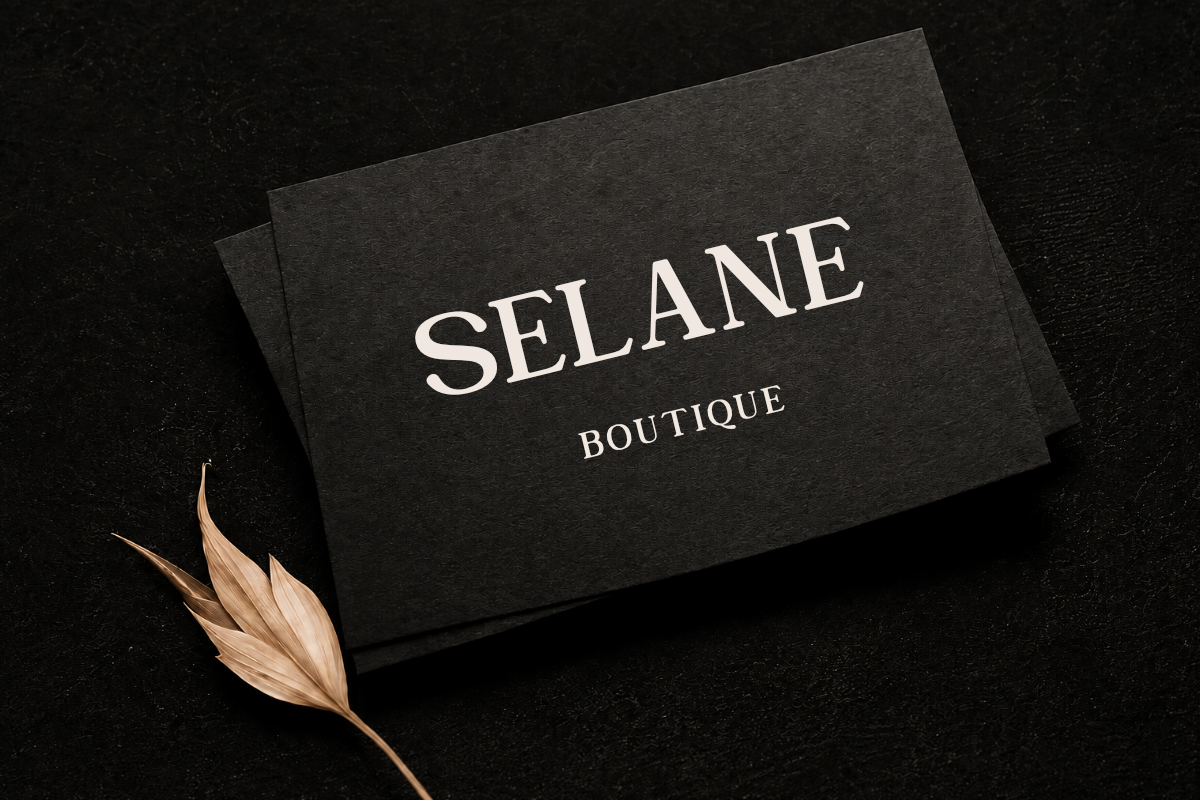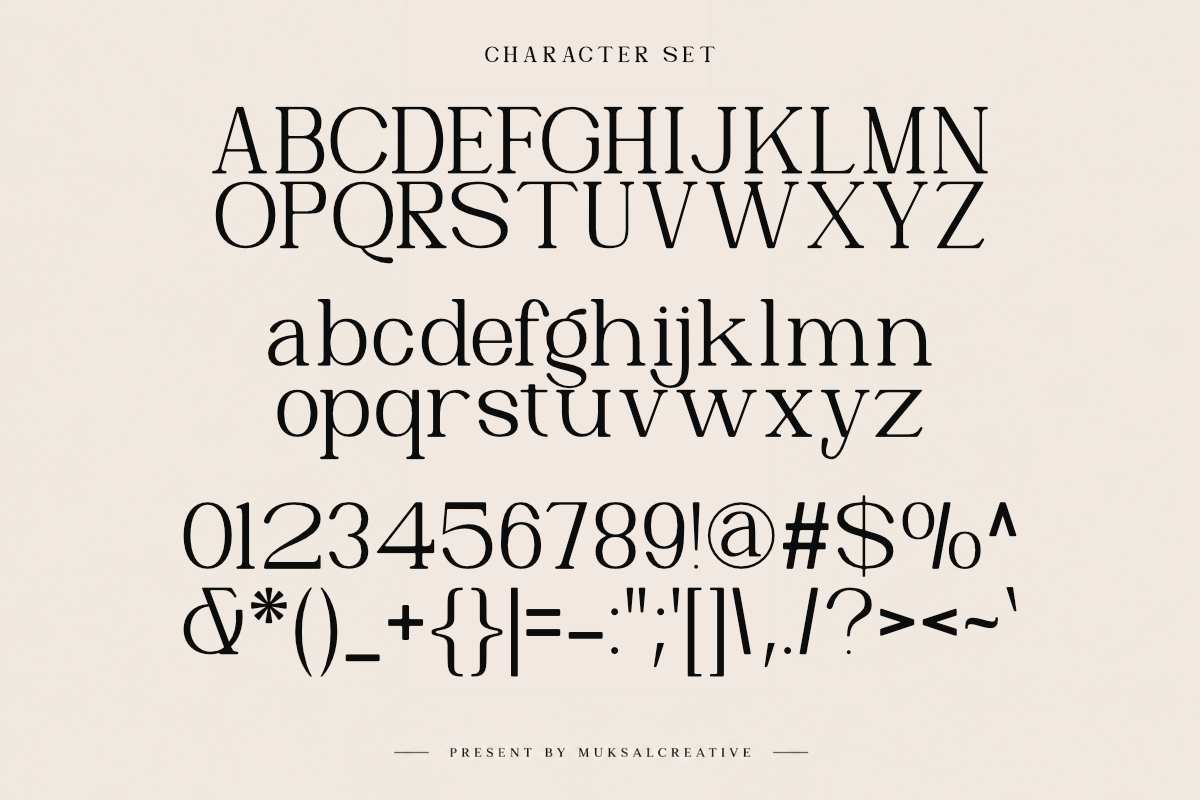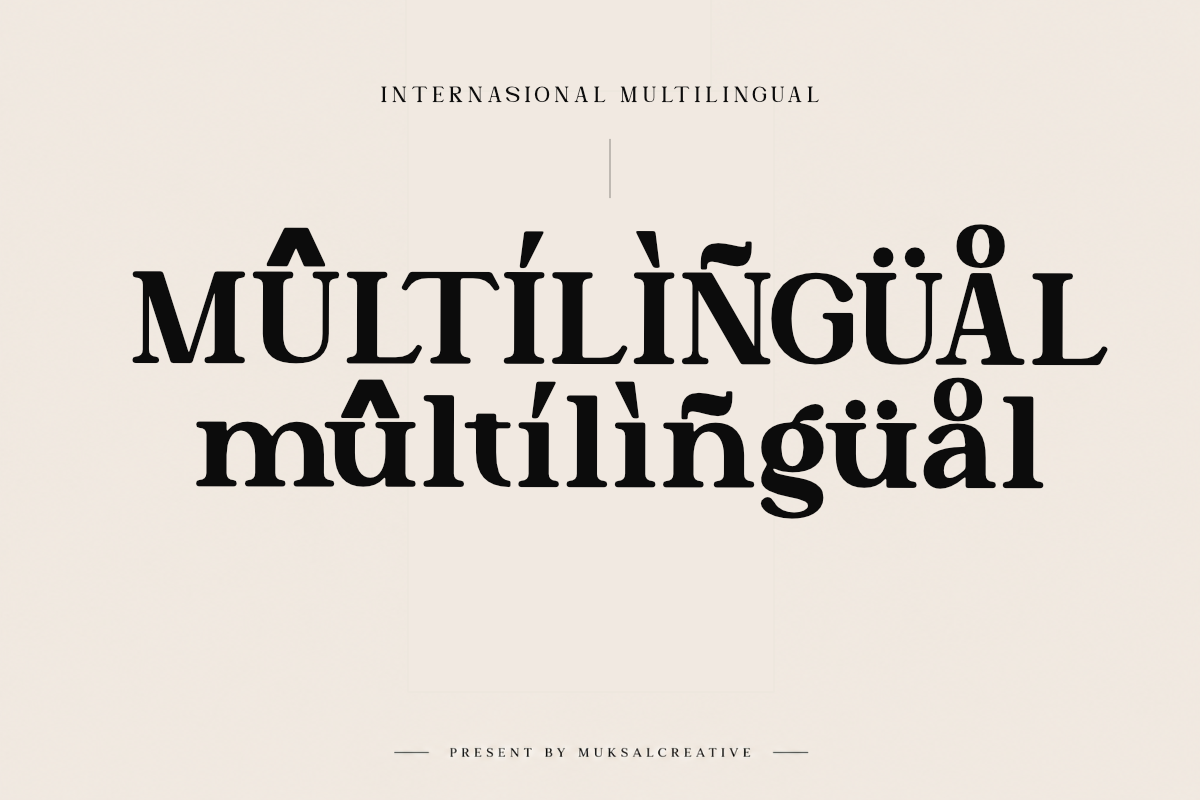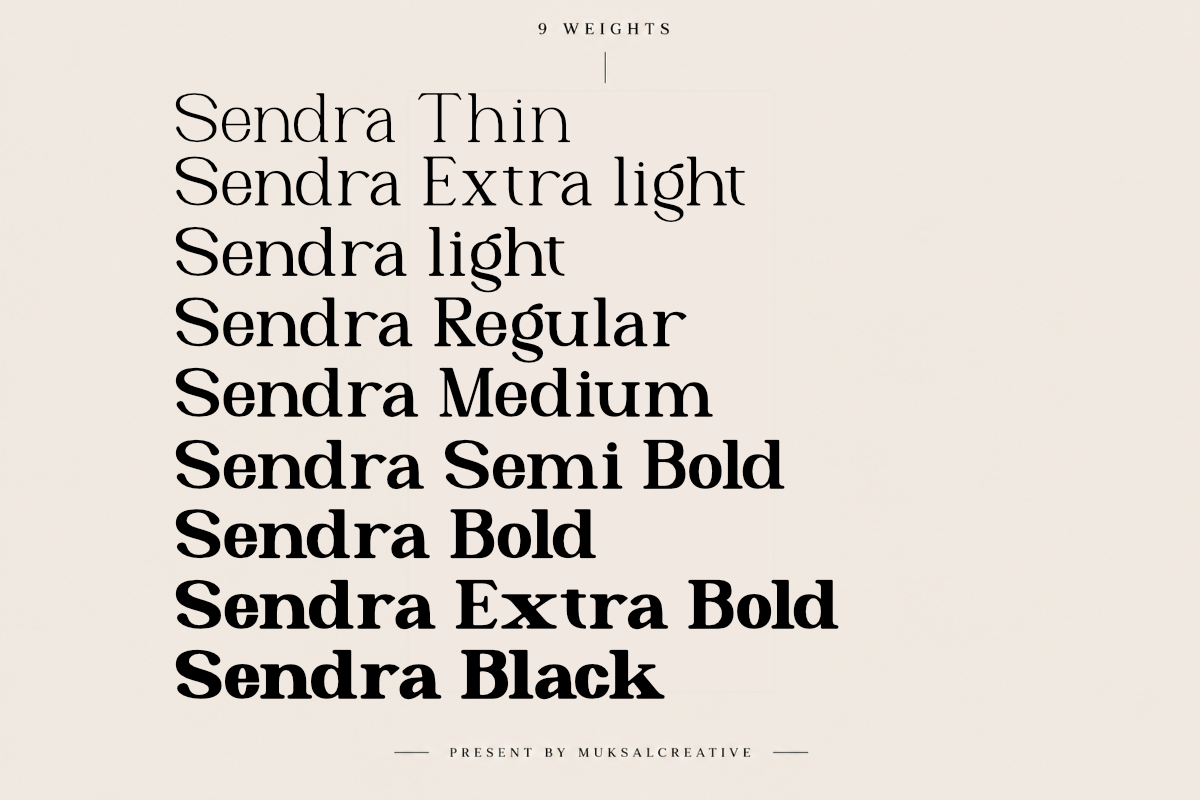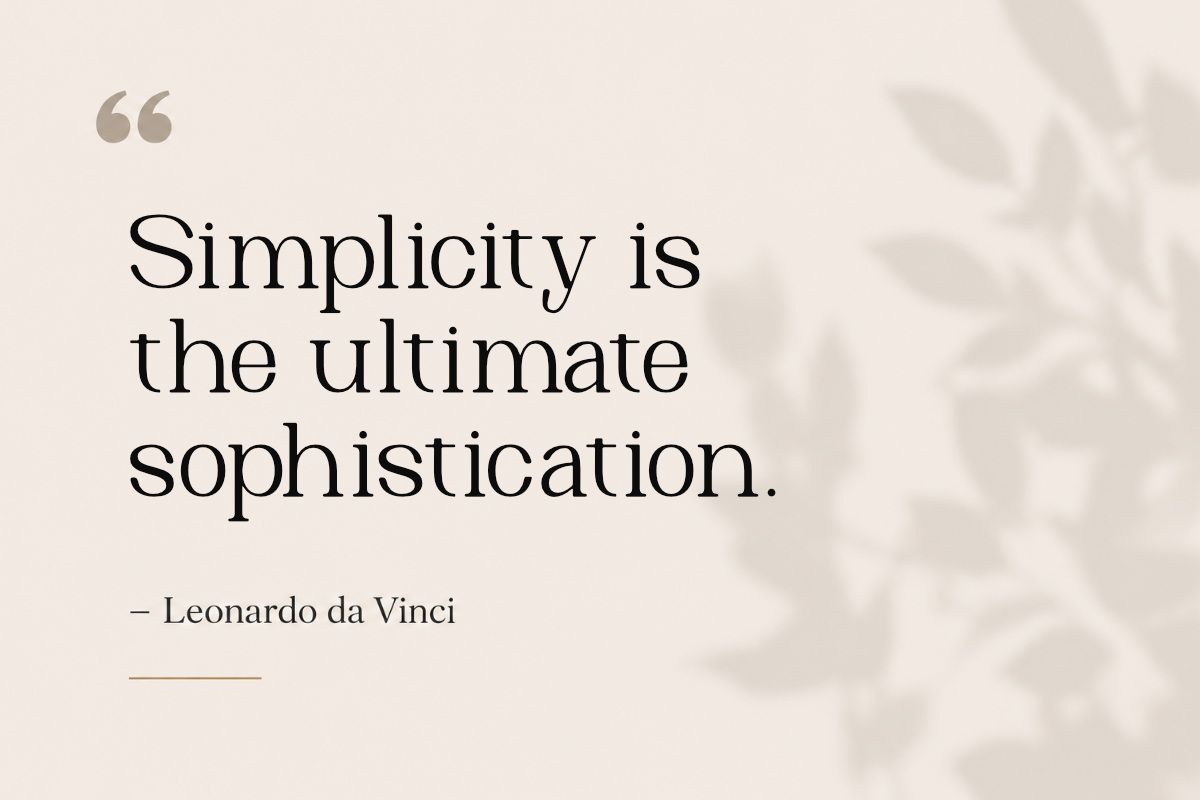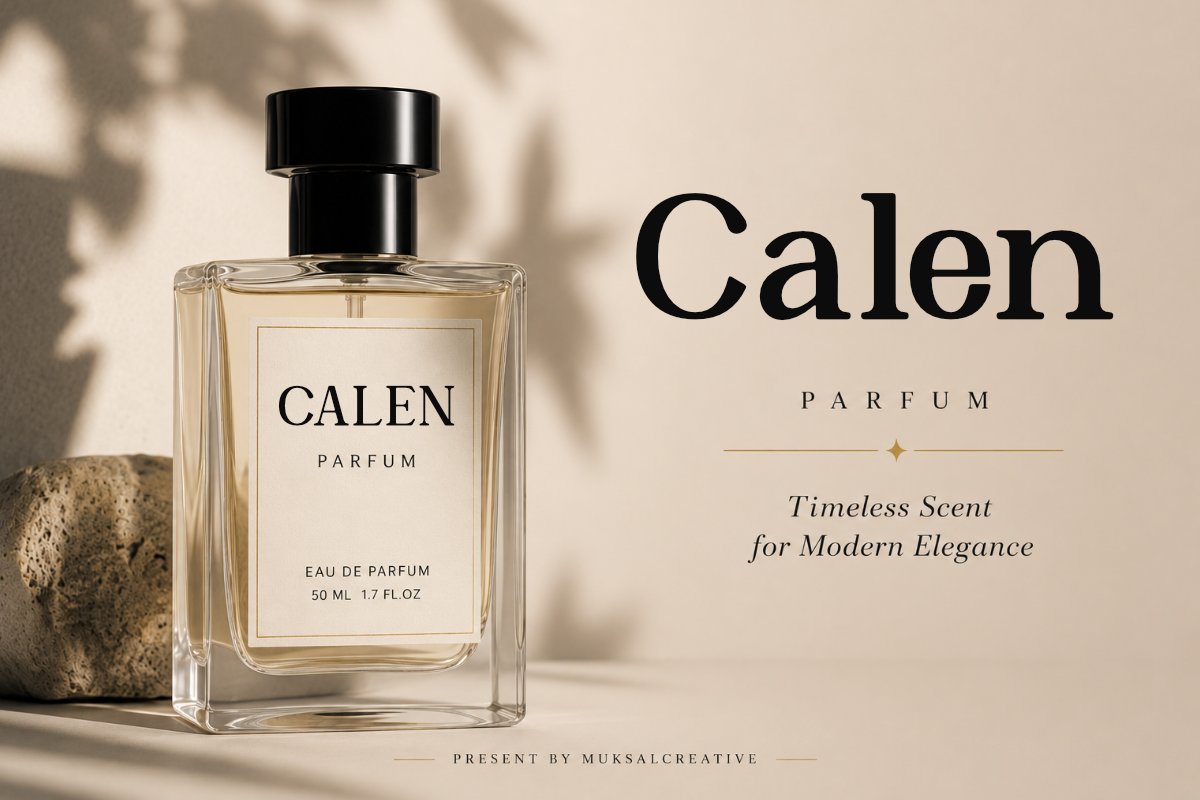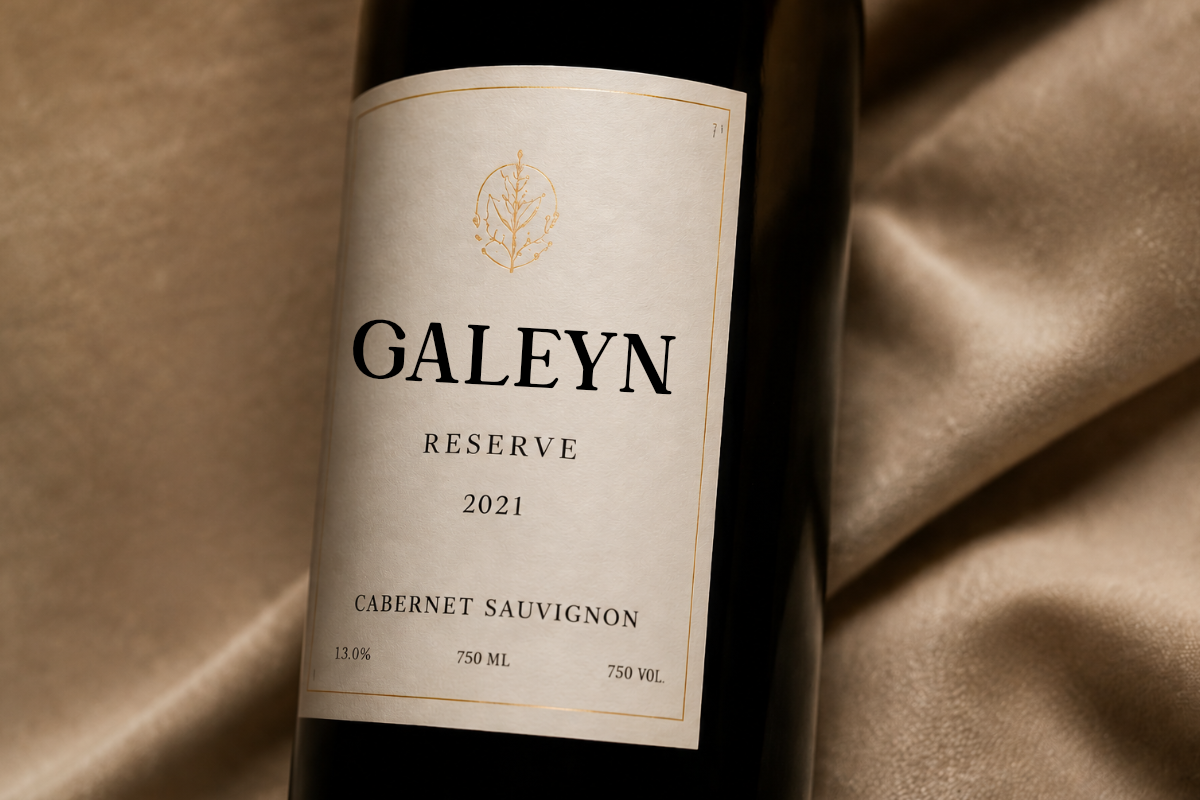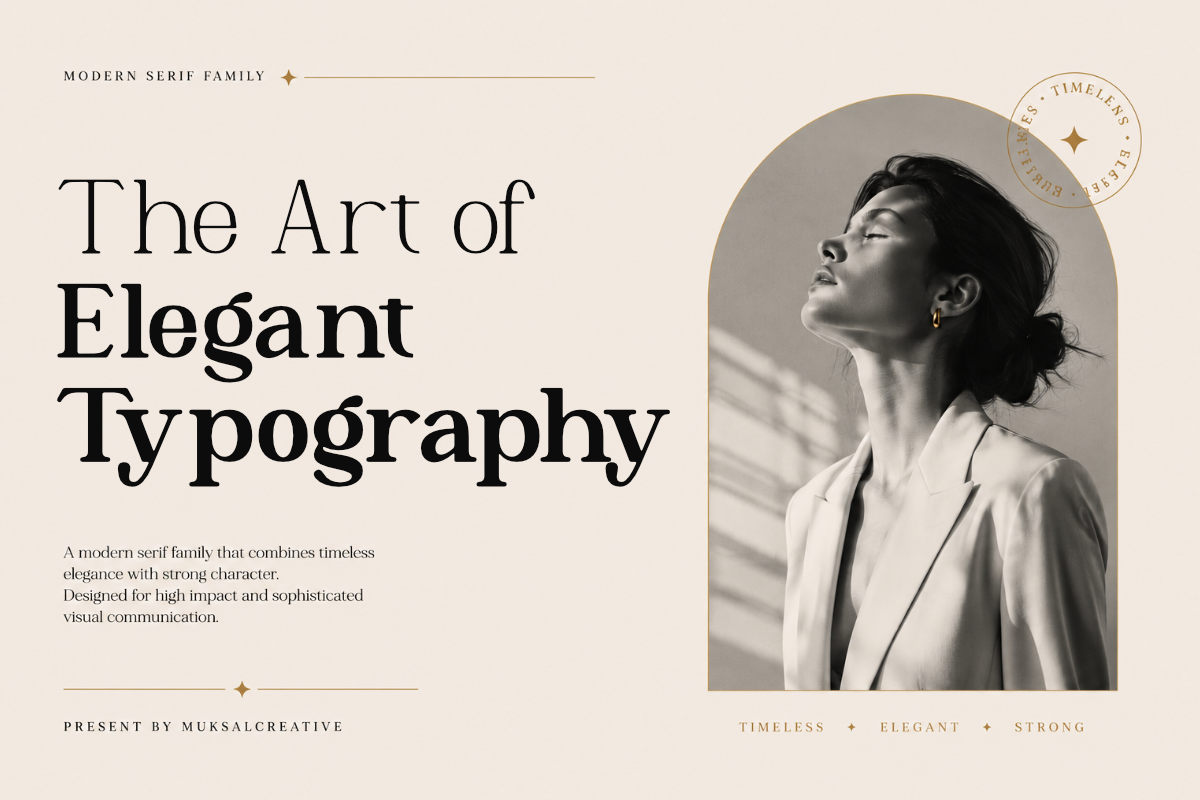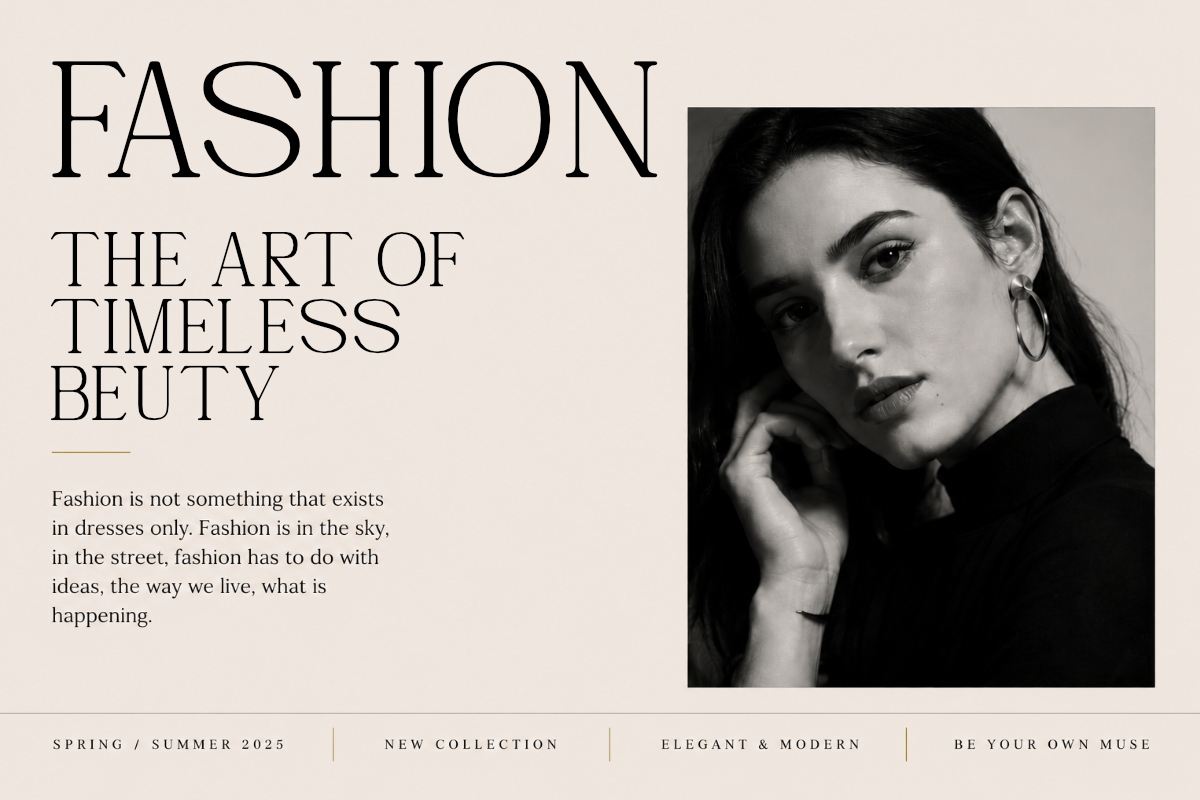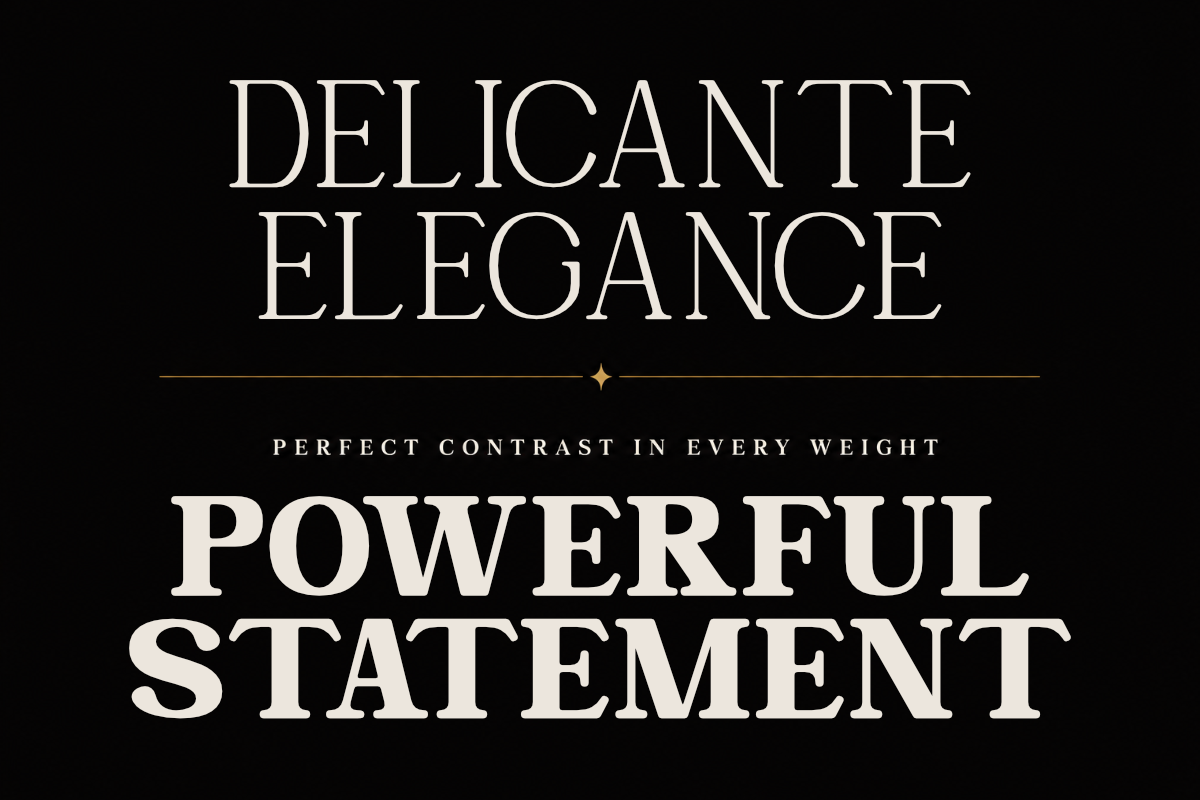
Sendra – Modern Serif Family
Sendra is a refined modern serif family designed to bring timeless elegance and strong visual character into one sophisticated type system. Inspired by luxury editorials, high-end branding, and contemporary fashion typography, Sendra combines delicate thin styles with bold dramatic blacks while maintaining harmony across every weight.
Crafted with balanced proportions, smooth curves, and stylish serif details, Sendra delivers a graceful appearance for both minimalist layouts and expressive headline compositions. From elegant magazine titles to luxury packaging, Sendra adapts beautifully across creative applications.
This typeface family includes a complete weight range from Thin to Black, allowing designers to create rich typographic hierarchy with consistency and style. Its clean structure and premium aesthetic make it perfect for editorial design, branding, beauty products, fashion campaigns, logos, invitations, packaging, and sophisticated digital content.
Whether used in large display settings or refined branding compositions, Sendra offers a modern serif experience that feels elegant, powerful, and timeless.
9 Weights: Thin to Black
Elegant Modern Serif Style
Clean Editorial Look
Perfect for Branding & Display Use
Luxury Branding
Fashion Editorials
Beauty & Cosmetic Packaging
Magazine Layouts
Wedding Design
Logos & Headlines
Social Media Templates
Premium Packaging
Modern Advertising Design